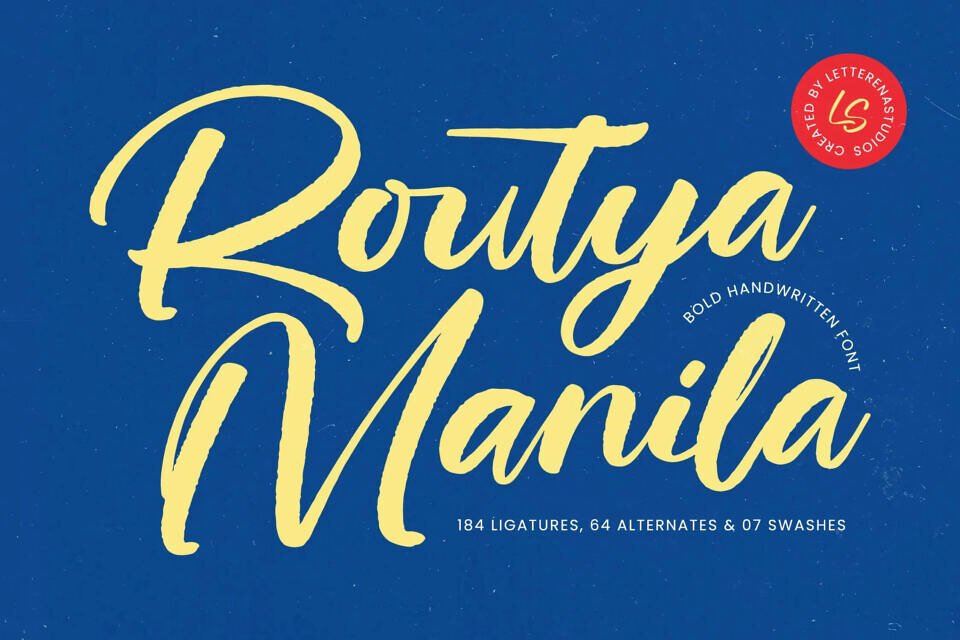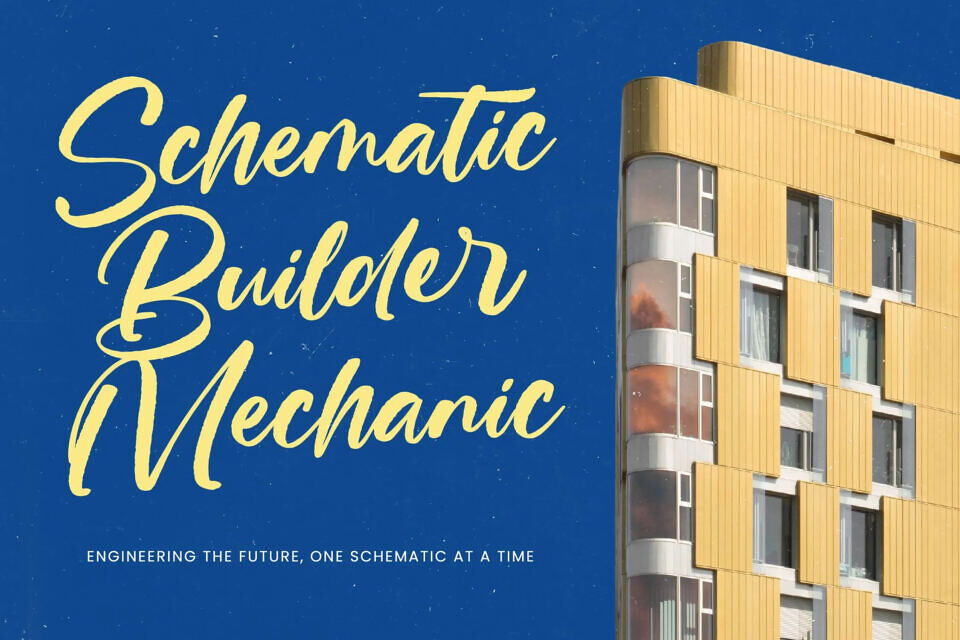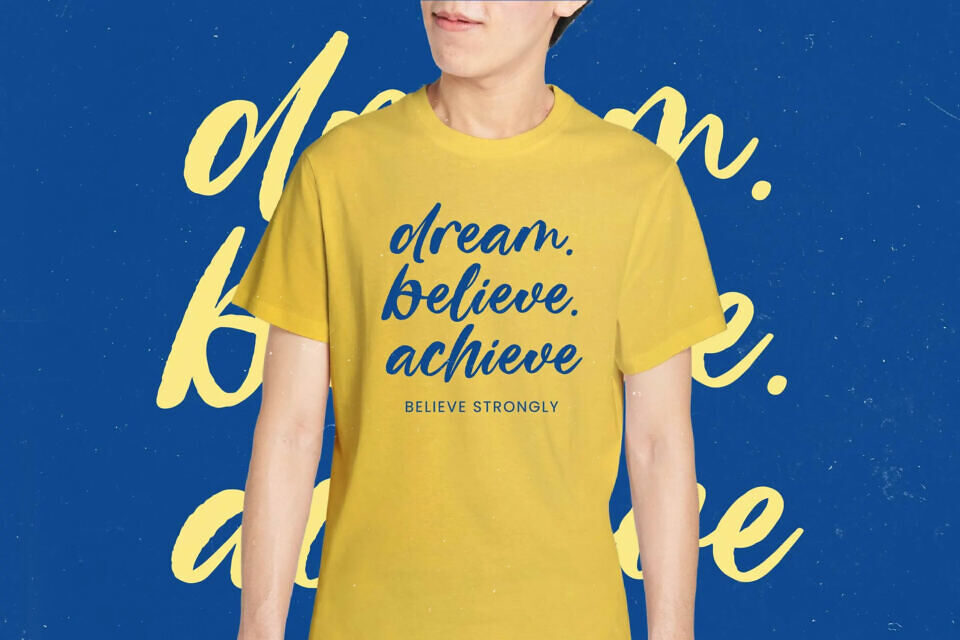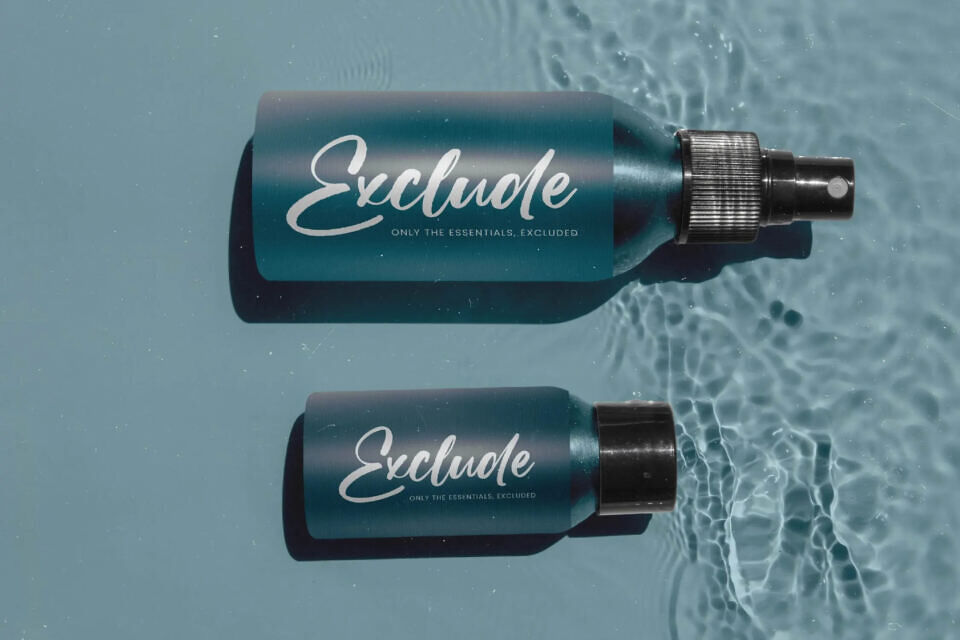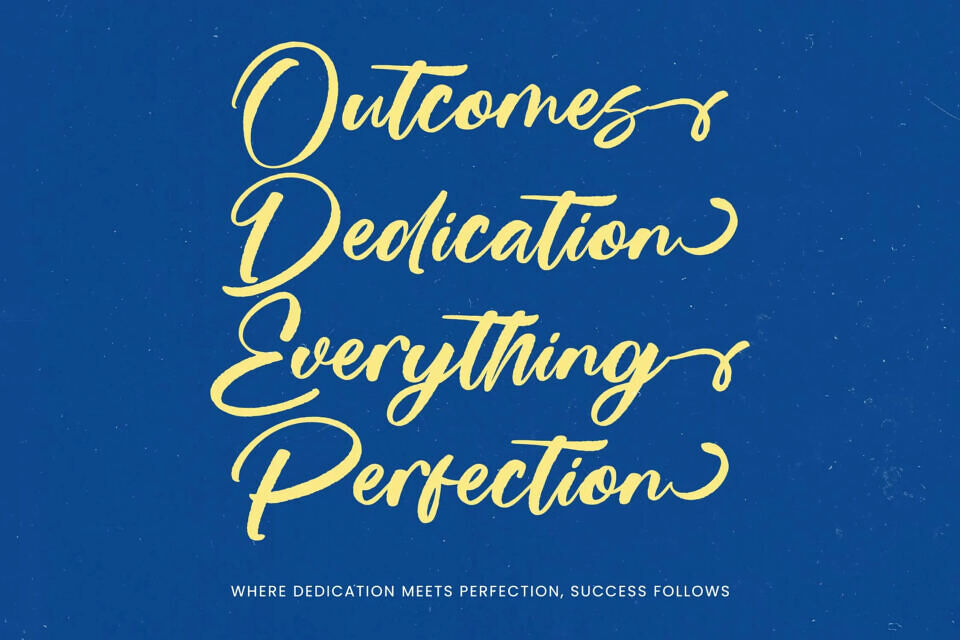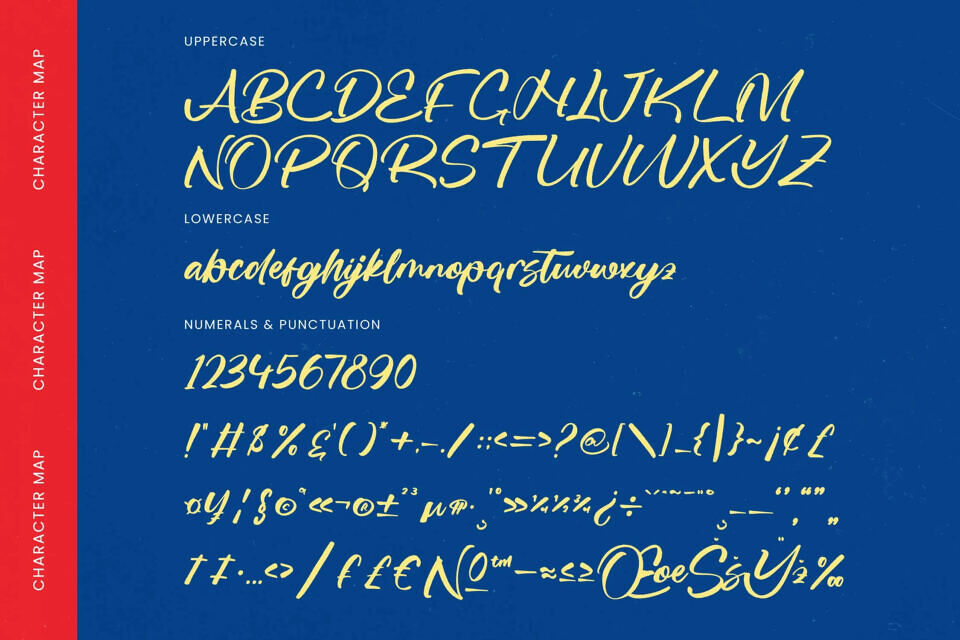
Routya Manila Font
Routya Manila from Letterena is a Luxury Script font, suitable for any projects such as: logos, branding projects, homeware designs, product packaging, mugs, quotes, posters, shopping bags, t-shirts, book covers, name card, invitation cards, greeting cards, label, photography, watermark, special events, and all your other luxury and beautiful projects that need a Luxury Script taste.